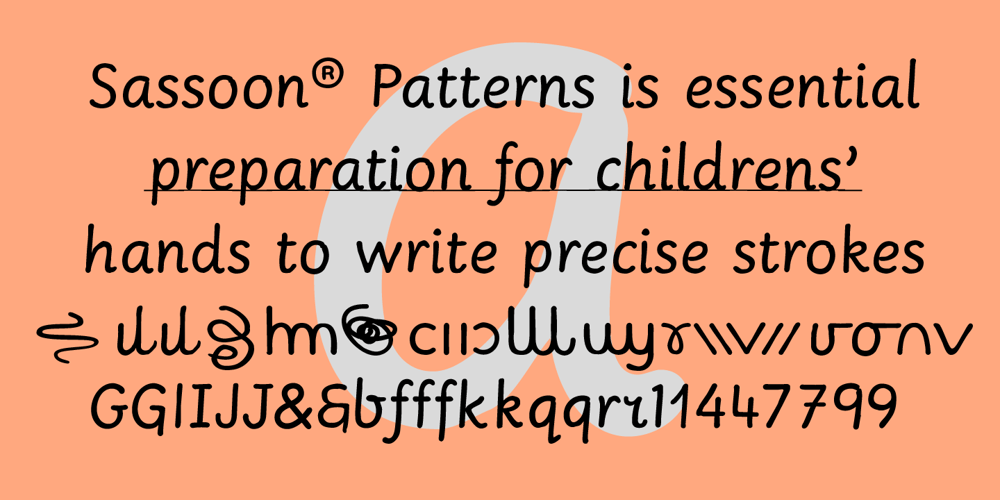
Sassoon Patterns
Sassoon Patterns font
Sassoon Patterns Font Family was designed by Rosemary Sassoon and published by Sassoon-Williams. Sassoon Patterns contains 2 styles and family package options. Many children start school with their hands not ready and trained to produce the precise strokes required for forming letters and starting to write. Pattern is essential preparation. It is fun for children, building their confidence as well as training their muscles for the task. Each font has normal letters and pattern characters. Free to download resources: How to access Stylistic Sets of alternative letters in these fontsPurchasers of this font package may use their Order Number to receive a free Copybook PDF by Rosemary Sassoon recommended for effective teaching